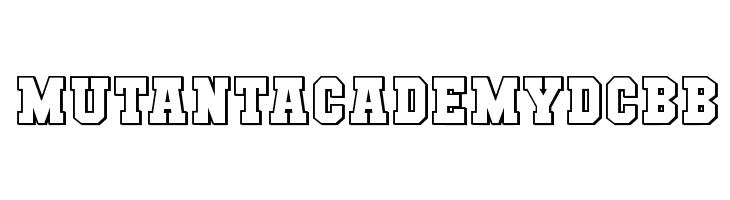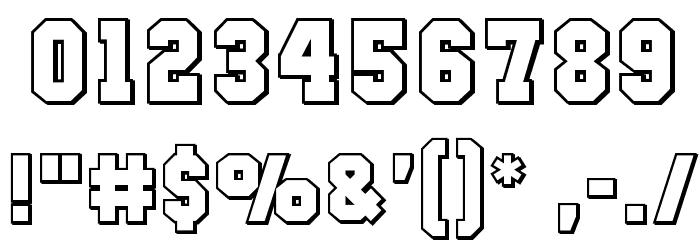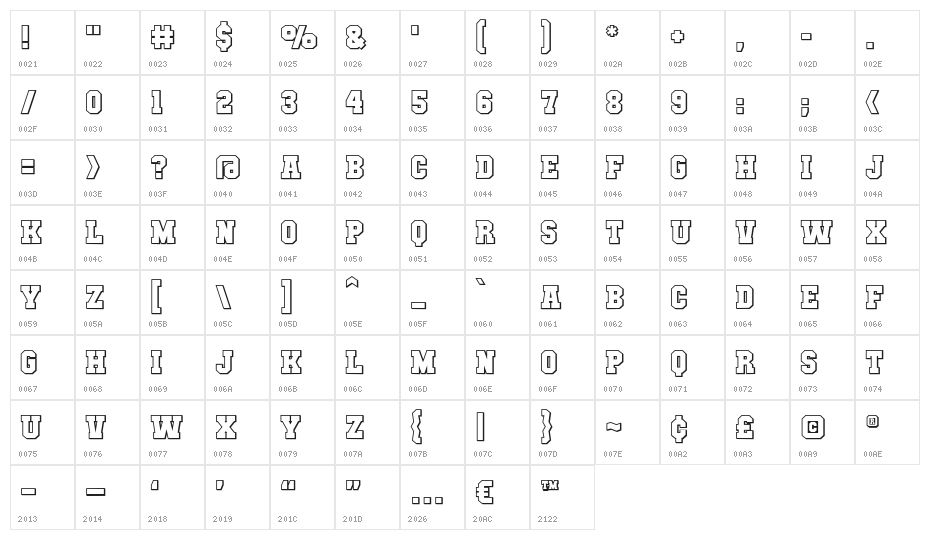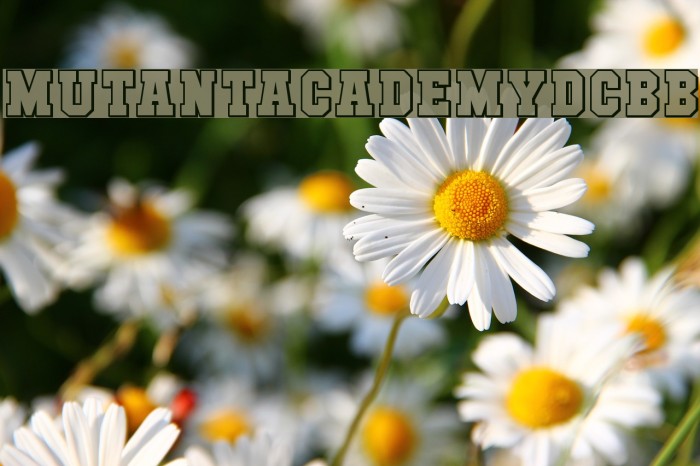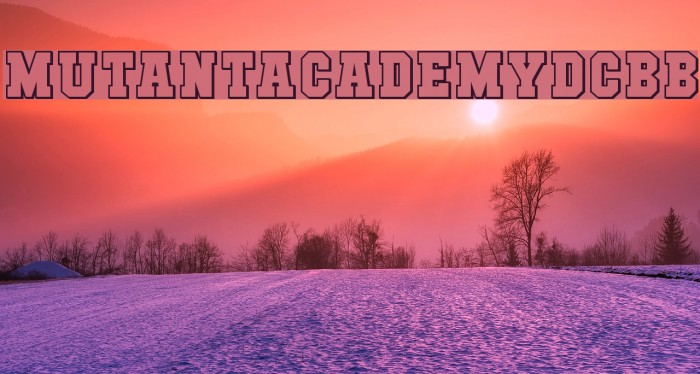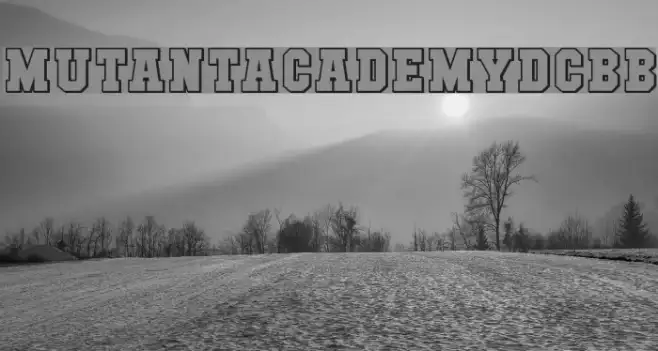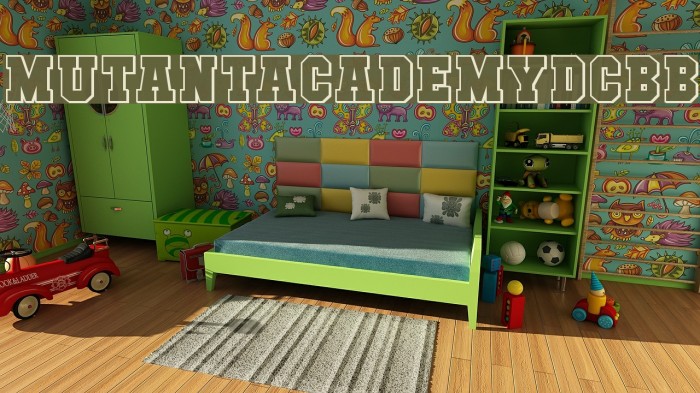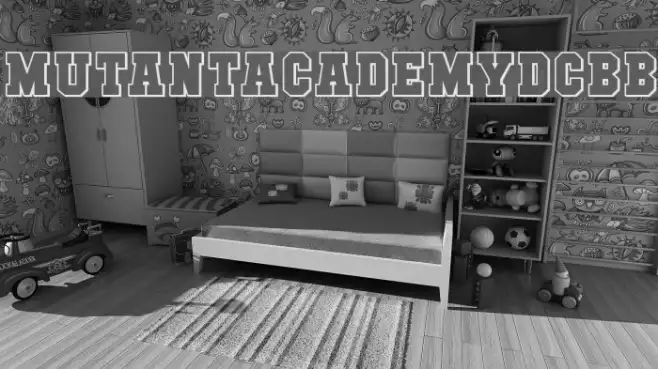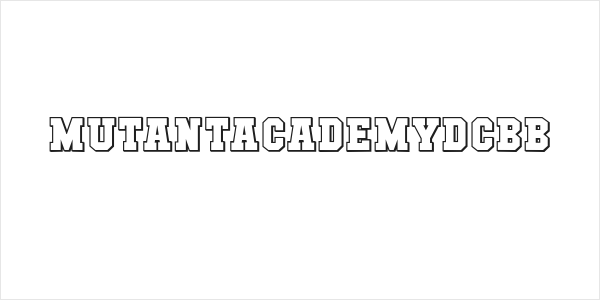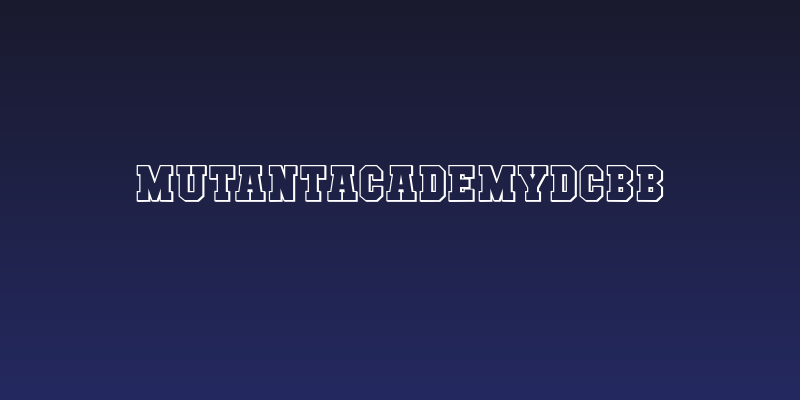
MutantAcademyDCBB Font
MutantAcademyDCBB Description
This font features bold, blocky characters with a strong, impactful presence. Each letter is outlined, giving it a three-dimensional effect that enhances its visibility and adds a layer of depth. The uppercase letters are uniform in height, maintaining a consistent and structured appearance. The numbers and special characters follow the same bold and outlined style, ensuring a cohesive look across all characters. This font's design is reminiscent of collegiate or sports team lettering, making it ideal for projects that require a bold and assertive typeface.
| Overall Style | Bold, Collegiate |
| Proposed Projects | Ideal for sports team logos, posters, banners, and any project needing a bold, impactful typeface. |